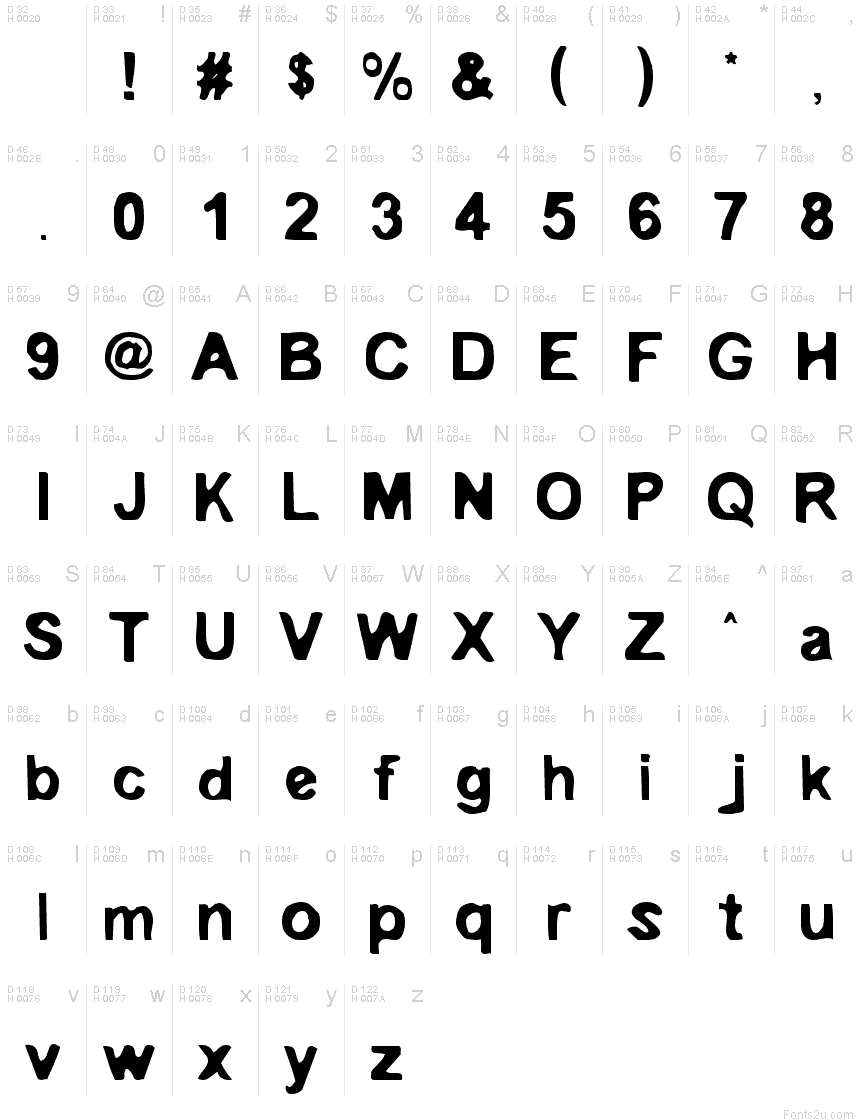
Embryonic Outside
Embryonic Outside font by Clearlight Fonts is a free eroded display typeface that looks like it’s been carved out of thick, inky paint. The Embryonic family’s chunky, rounded shapes are chipped and worn at the edges, giving every word a soft-but-grungy texture—more organic driftwood than harsh grit. It feels hand-formed and slightly wobbly, adding personality without becoming unreadable.
Using Embryonic Outside, your titles and logos instantly pick up a raw, handmade energy that works beautifully for skate or surf brands, zines, gig posters, horror-comedy graphics, and alternative kids’ projects. This free font shines when set large, letting the rough contours and uneven weight really show. Pair it with a clean, simple sans serif for body text to keep your layouts bold but balanced.